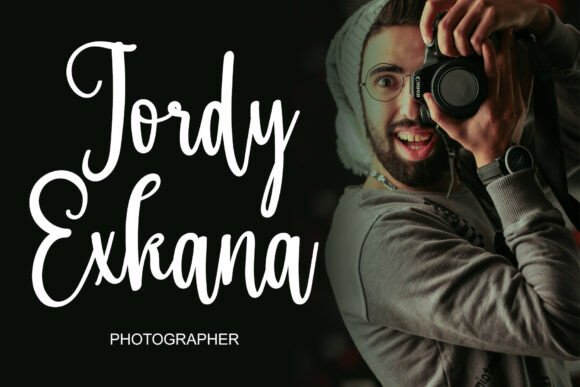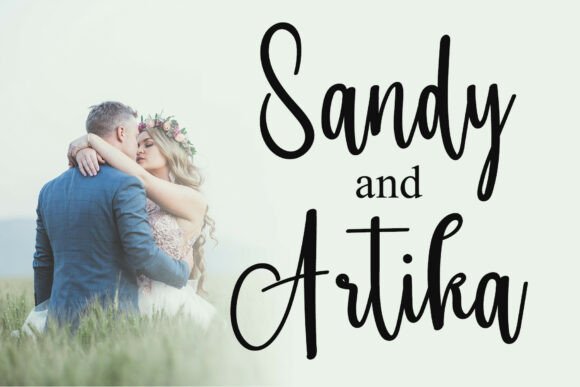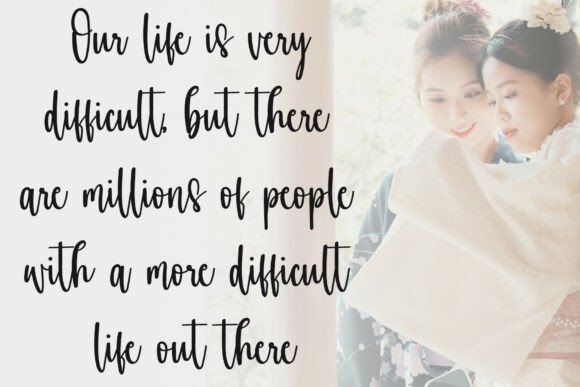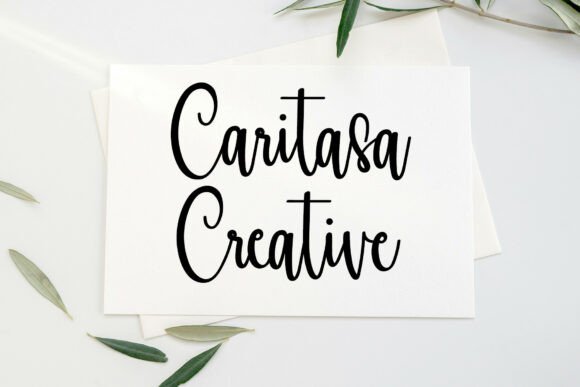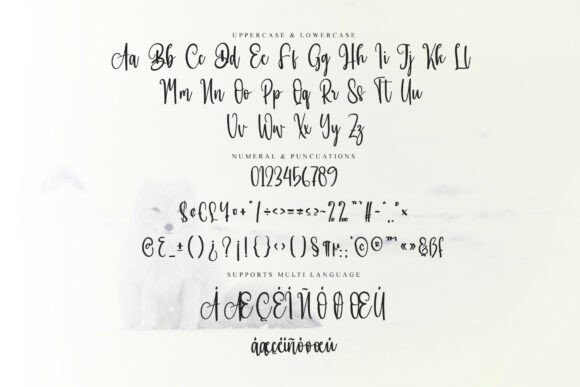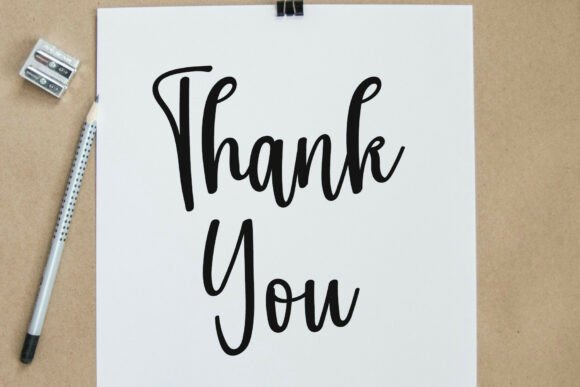
Introduction to Scalding Font
Do you ever find yourself flipping through old family recipe books or vintage greeting cards, mesmerized by the unique handwriting and delicate flourishes that transport you back in time? For many designers, this is the perfect spark for a creative project. As we search for the perfect design resource, we often crave that special something that sets our work apart from the ordinary. This is where Scalding Font comes in – a beautifully crafted handwritten script font that combines vintage elegance with heartwarming character.
With its delicate flourishes and natural variations, Scalding Font is the perfect addition to any design, whether you’re creating heirloom recipes, retro packaging, or sentimental stationery. Its high-quality design and transparent background make it easy to integrate into any project, and the best part? You can download it for free to elevate your creative endeavors.
- Unique characteristics: Scalding Font features a bold and edgy design, with unique letterforms and flourishes that add a touch of sophistication to any project.
- Perfect for creative projects: Whether you’re working on a logo, poster, or web design, Scalding Font is an excellent choice for adding a touch of creativity and flair.
Honest Review: Scalding Font
As a designer, I’m always on the lookout for high-quality design resources to elevate my creative projects. Recently, I stumbled upon Scalding Font, and I must say, it’s been a game-changer for me. ✨
One of the standout features of Scalding Font is its transparent background, which makes it incredibly versatile for use in various design contexts. Whether you’re working on a digital project or a print-based one, this font is sure to impress. I’ve used it for a range of projects, from logos to brochures, and it never fails to deliver.
- High quality: The font is meticulously crafted, with crisp lines and a professional look.
- Limited character set: While the font itself is excellent, the character set is relatively small, which may be a concern for designers working on projects that require a wide range of characters.
- No bold or italic variants: Unfortunately, Scalding Font doesn’t come with bold or italic variants, which can limit its use in certain design contexts.
Overall, I’m thoroughly impressed with Scalding Font. Its high quality, transparent background, and free download make it an excellent design resource. While it may have some limitations, I believe the benefits far outweigh the drawbacks. ✨
The Scalding Font is perfect for creative projects that require a bold and eye-catching font. Some common use cases include: designing a logo, creating a social media graphic, or making a presentation for a business proposal.